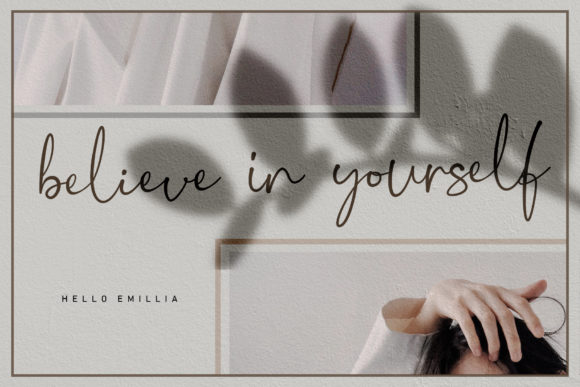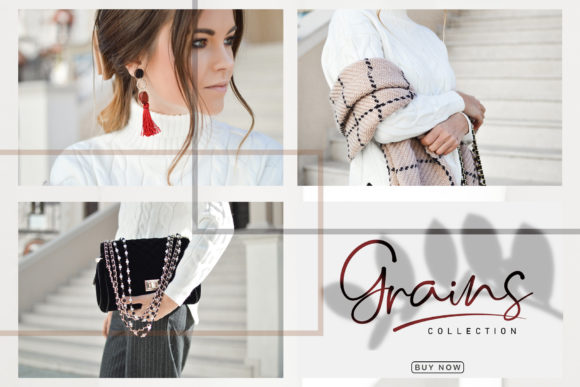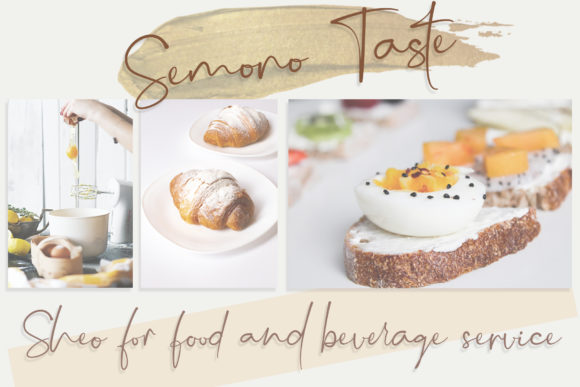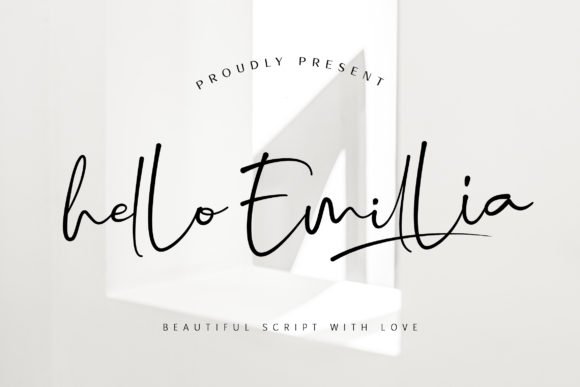
Introduction to Hello Emillia Font
Hello Emillia is the perfect font for any design project that requires a luxurious and sophisticated feel.
Use it to turn any design project into a true standout .
Key Features of Hello Emillia Font
Why Choose Hello Emillia Font?
Hello Emillia Font offers exceptional quality and versatility, making it a valuable addition to your design toolkit. Whether you’re creating for personal projects or commercial use, Hello Emillia Font delivers professional results.